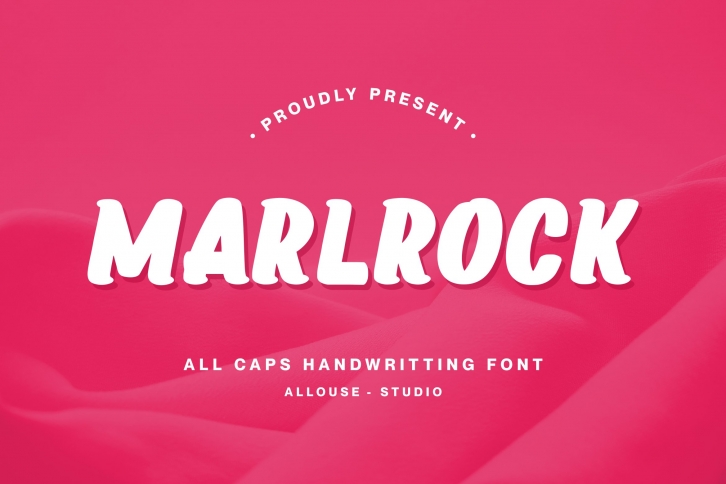
Marlrock is a great font that was designed by Allouse Studio. Imagine the amount of combinations you can create using this font! The archive is 1.25 MB and it was released on January 14, 2022. Marlrock looks beautiful on wedding invitations, greeting cards, logos, posters, labels, t-shirt designs, logos, business cards and is perfect for use in ink or watercolor works, fashion, magazines, packaging and food menus, children's books and more!